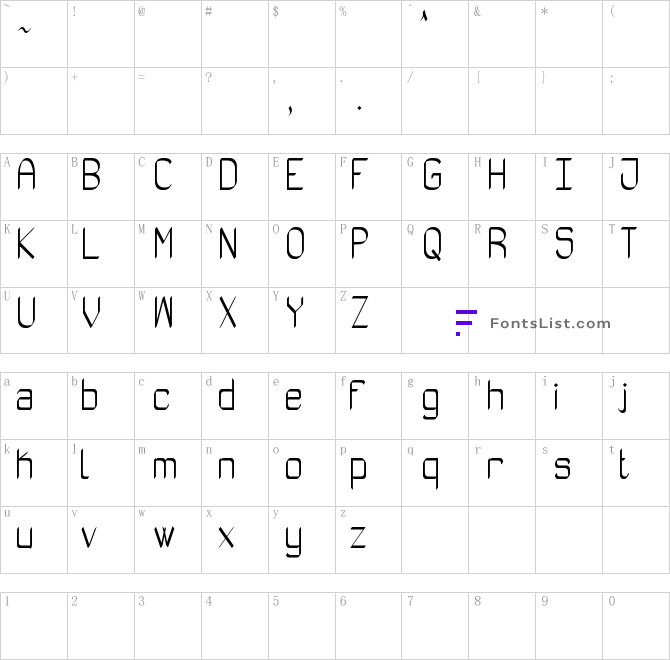
- Font Name:Absolutamente Rou St
Absolutamente-Rou-St.ttf is a very beautiful artistic font, Absolutamente-Rou-St.ttf is widely used in the design and printing of various books and pictures,Absolutamente-Rou-St.ttf has a strong visual impact,Absolutamente-Rou-St.ttf is a commonly used font in newspapers, magazines and books, and is used in posters, e-commerce Poster design, store design, logo design, font design and other fields.Absolutamente-Rou-St.